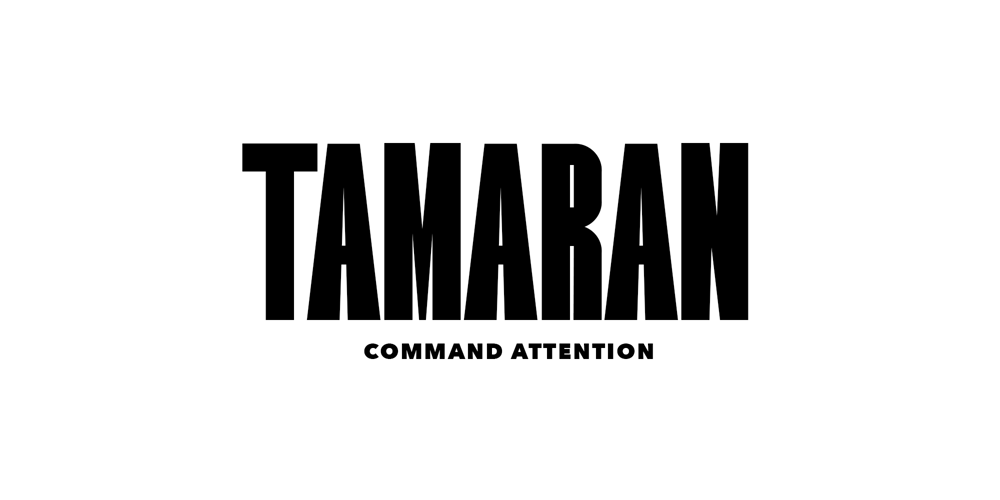
Tamaran Font Family was designed by Gholib Tammami and published by Gholib Tammami. Tamaran contains 1 styles and family package options. This super bold display font created by Gholib Tammami , Tamarin Font perfect for your display content with heavy titles and headlines. This font has a unique style with uppercase, lowercase, number, punctuation and ofcourse with multilingual support.Tamaran Features :Mulitilinguange SupportIf you have any questions, before or after purchase, please feel free to get in touch.Thankyou for coming!